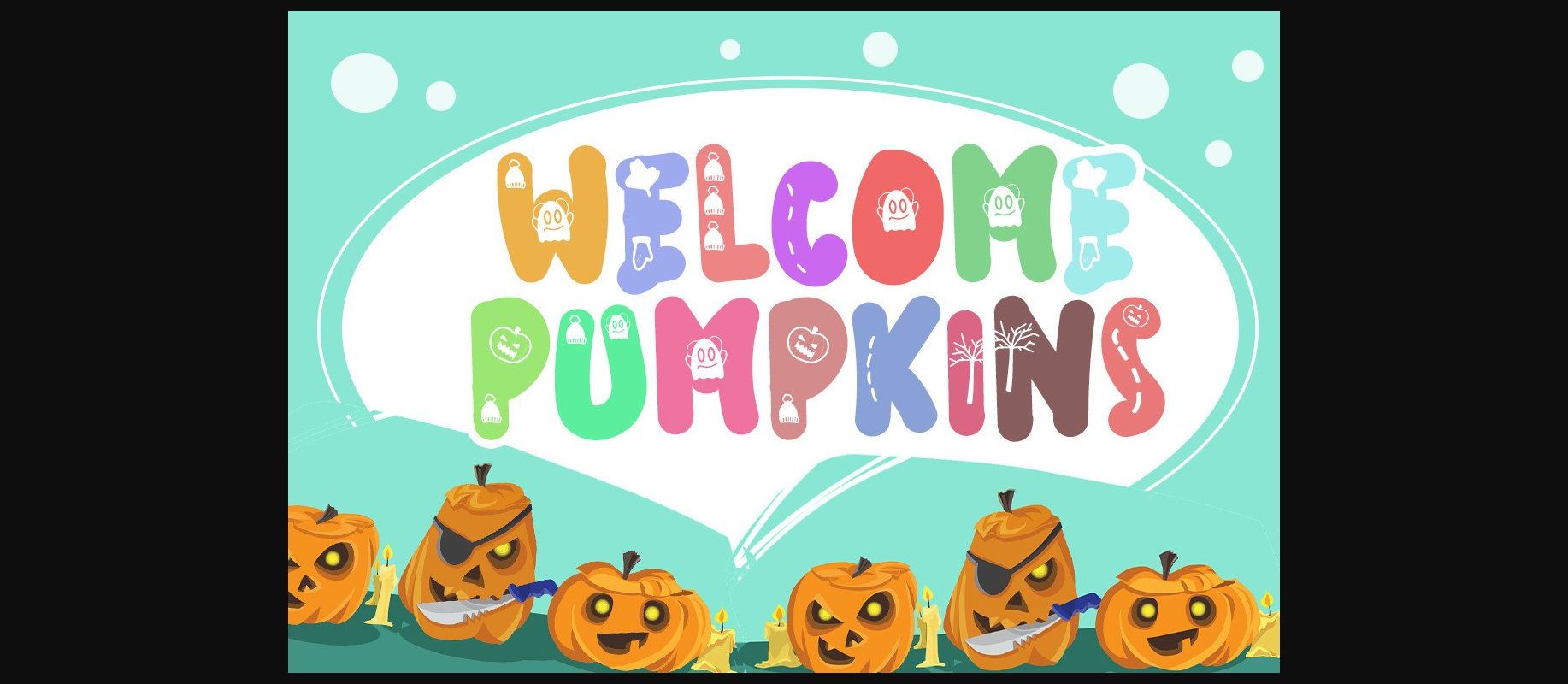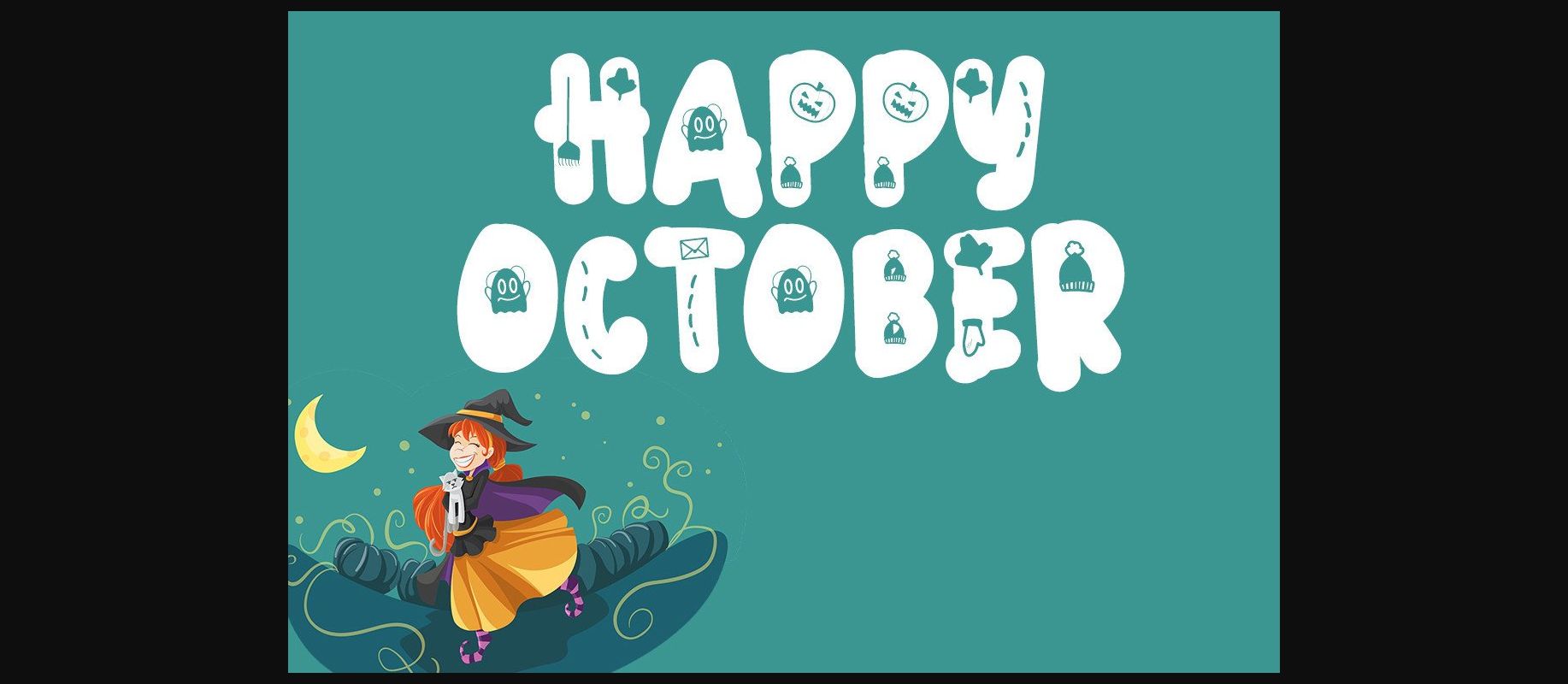
About Welcome Pumpkins Font
Welcome Pumpkins is a beautiful and sweet font. It is fresh, clean, and elegant. This font will look amazing in a great amount of projects, both formal and informal.It will add an incredibly joyful touch to your designs.Fonts designed to simplify your design. By using this font, your business will look more beautiful